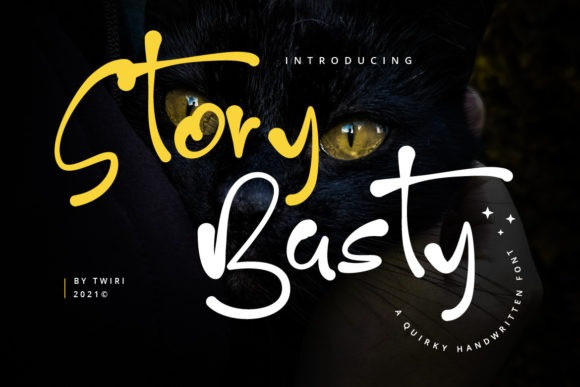
Story Basty Font
Story Basty is a quirky, sloppy and informal handwritten font. Its informal style and casual vibe will make this font a go-to choice for each of the creations that require a relaxed touch.